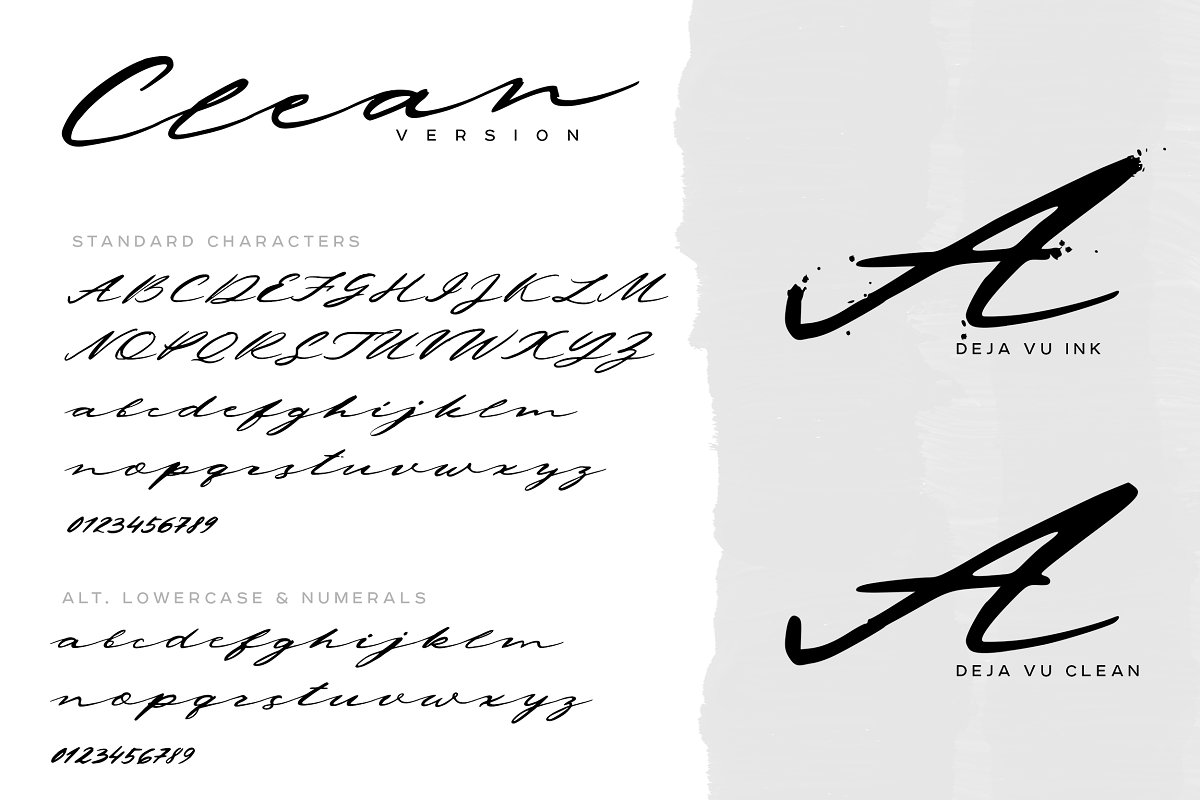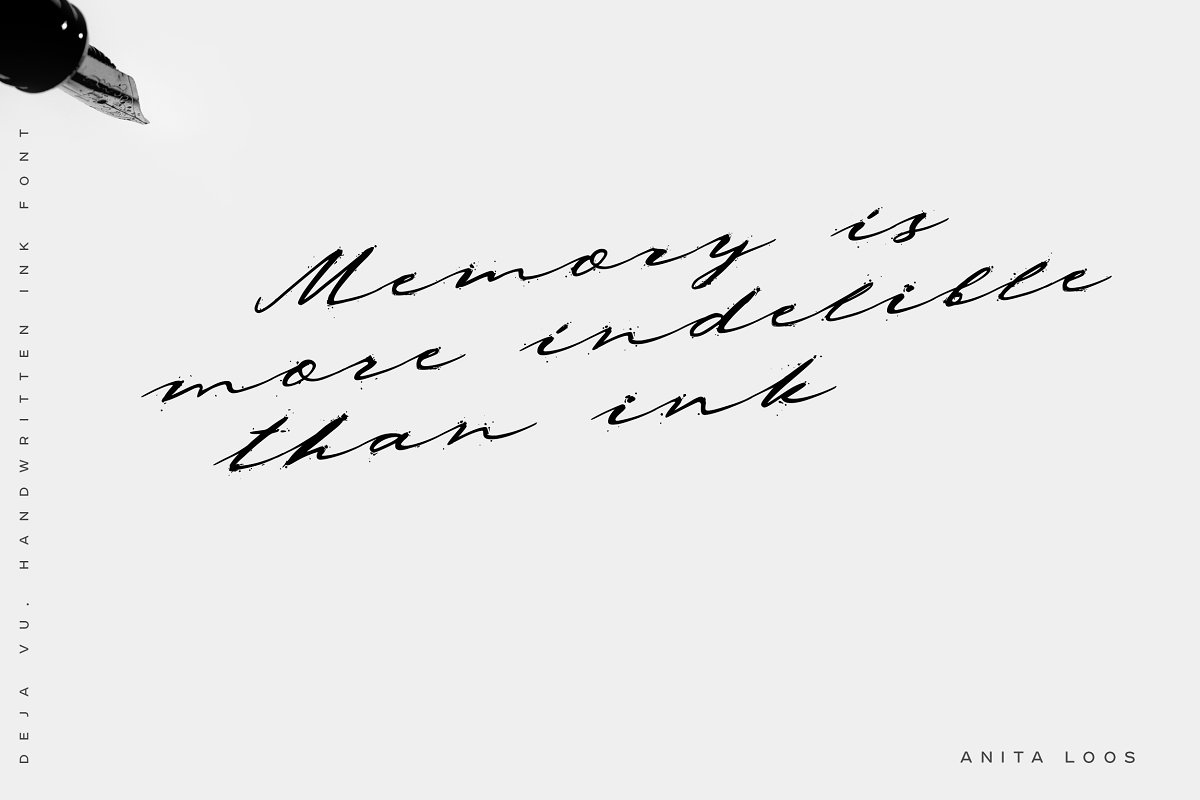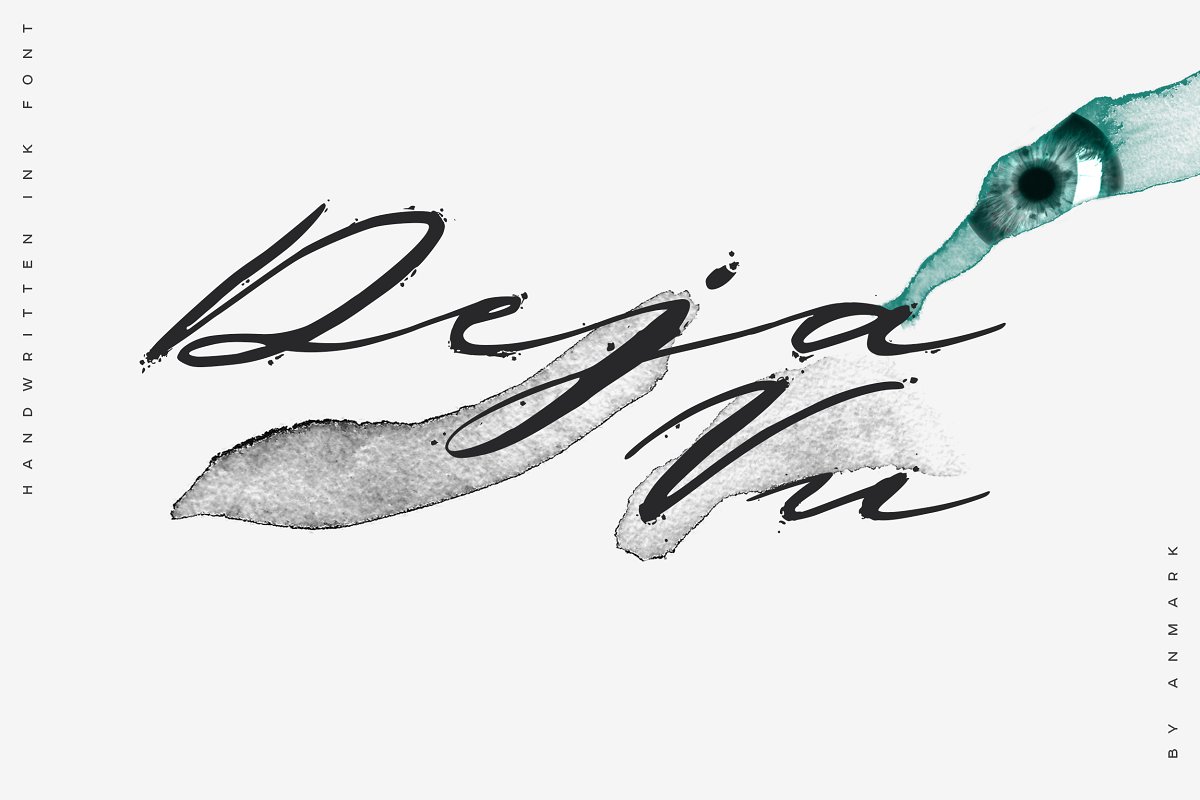
Deja Vu Handwritten Ink Font
Introducing Deja Vu Font. It is designed by anmark, this is a premium font, are sold on creativemarket, but it was great, it is free today for download. Deja Vu Handwritten Ink Font is a splatter ink font. Each uppercase and lowercase letter has unique ink splashes. This decorative style is perfect for logotypes, branding projects, tattoo, packaging, social media, signatures, headers and many more…
Deja Vu Clean is an elegant feminine script font. Use this modern font for invitations, cards, packaging, social media, signatures, quotes, magazines and more. You can use it for long texts or short phrases.